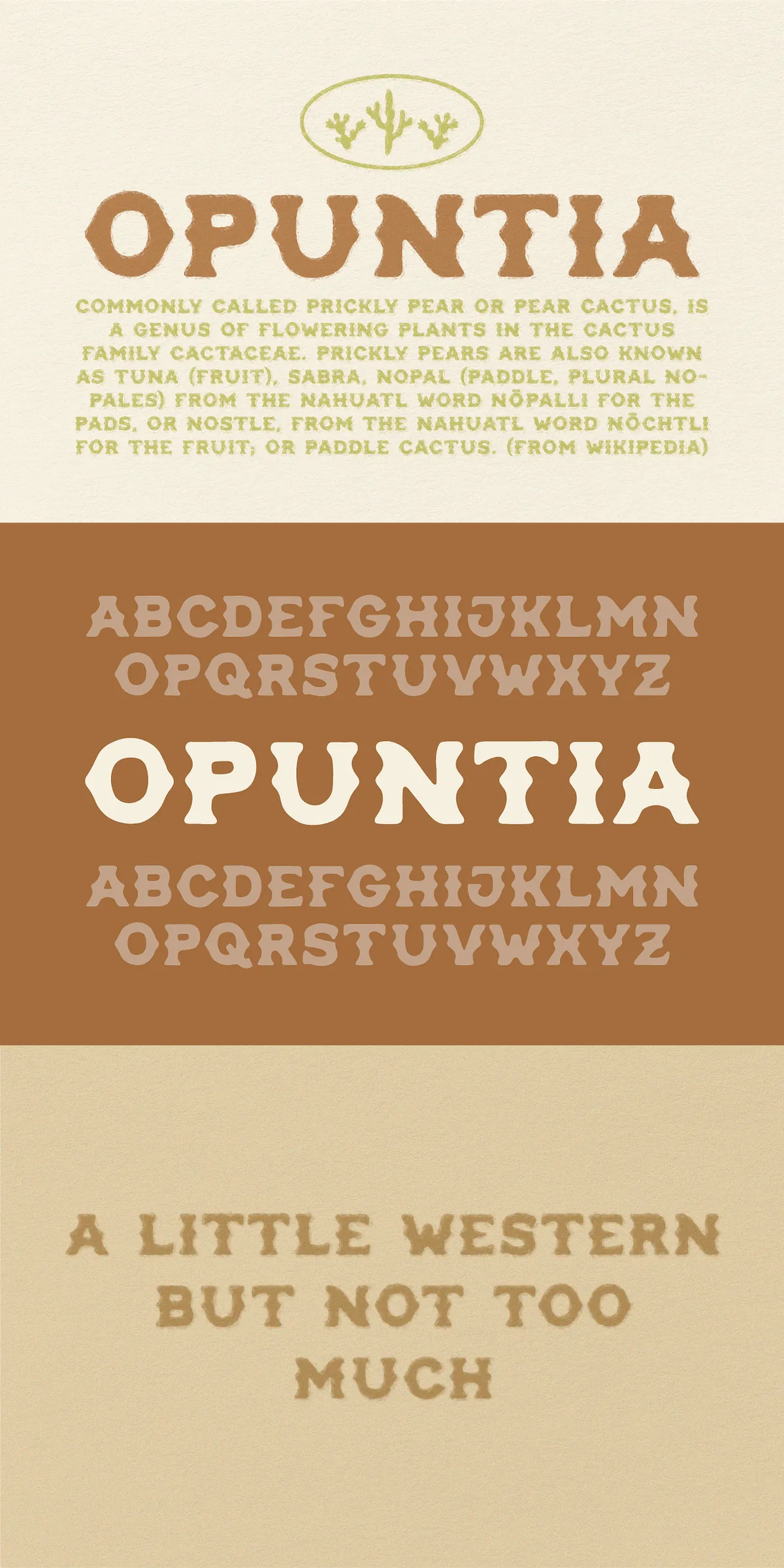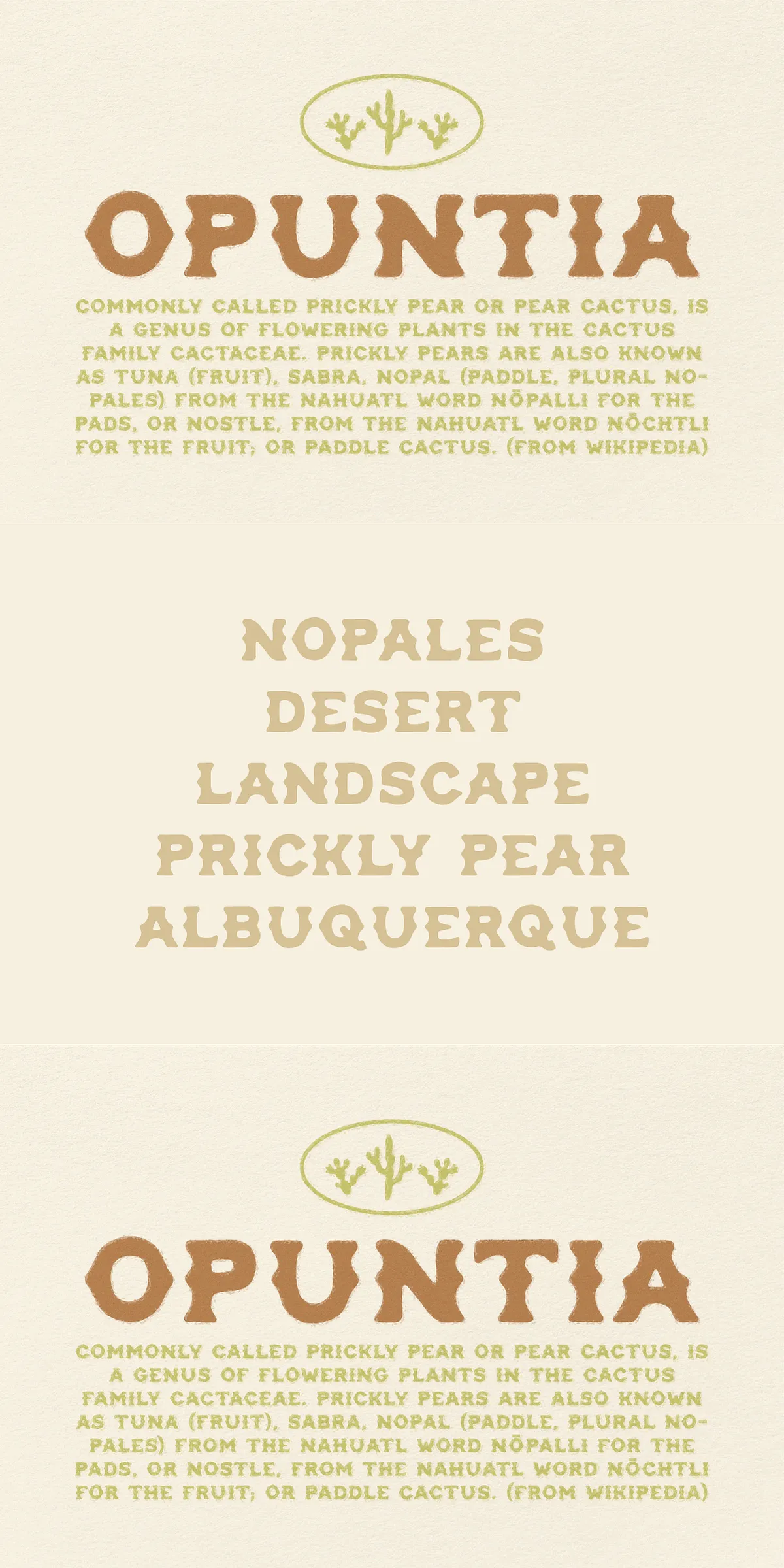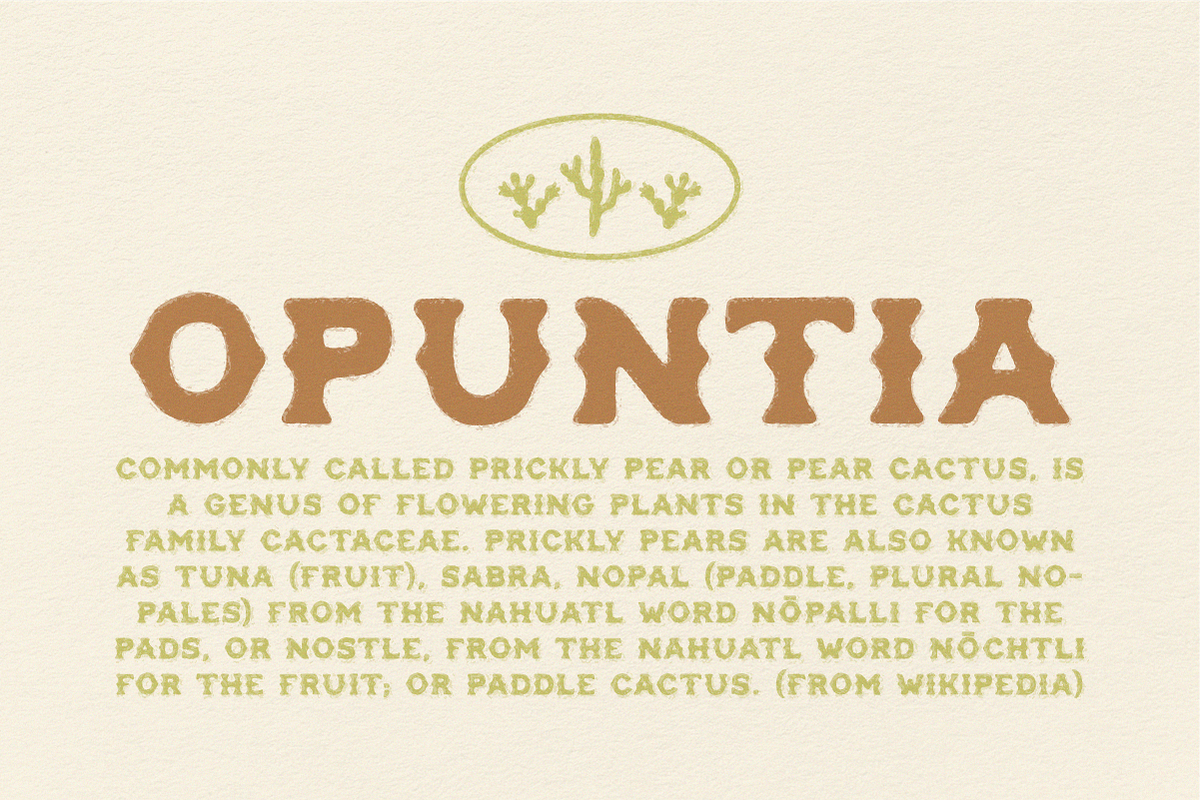
Step into the wild heart of the desert with Prickly Pear — a dynamic, handcrafted typeface born from the raw beauty of nature, the defiant spirit of desert flora, and the quiet poetry of survival. This isn’t just a font. It’s a tribute to the prickly pear cactus, the cholla, and the resilient life that dares to thrive under the harshest sun. Every curve, every jagged edge, every flowing line echoes the organic architecture of a landscape shaped by time, drought, and silence.
The Essence of the Desert: Form, Feeling, and Function
Prickly Pear captures the essence of desert life in its very structure. The font’s flowing, alternating angles mimic the graceful sway of cactus pads swaying in the wind. Its subtly irregular contours reflect the way nature adapts — not with symmetry, but with resilience. The bold, tactile strokes echo the thick, waxy skin of the cactus, built to store water and deflect the elements. Even the open loops and sharp points whisper of protection — a visual language of survival.
This isn’t a rigid, machine-made font. It radiates a sense of handmade authenticity — a tactile, almost sculptural quality. The curves feel alive, breathing with the rhythm of the land. And yet, despite its organic inspiration, Prickly Pear is engineered for modern design. It’s clean enough for headlines, expressive enough for logos, and rich in character for editorial and branding work.
Characteristics That Define the Spirit of the Landscape
- Curvaceous Structure: Generous, flowing arcs and soft, meandering lines reflect the natural form of the prickly pear pad — elegant, sinuous, and undeniably alive.
- Alternating Angles: Strategic sharp turns and slight offsets create visual rhythm, mimicking the staggered pattern of cacti growing in the sand.
- Organic Weight Variation: Not uniform — thick strokes in the center, thinner ends — like a cactus branch that thickens near its base.
- Textural Subtlety: Subtle grain-like details embedded in the font give it a tactile, hand-drawn feel, enhancing its natural origin story.
- High Visual Impact: Designed to command attention — ideal for posters, packaging, and titles that need presence.
Perfect for Designers Who Seek Authenticity
Prickly Pear is the ultimate choice for designers who value storytelling through typography. It’s not about fitting into a grid. It’s about embracing the wild, the imperfect, the real. Use it to:
- Create branding for eco-conscious businesses, wellness studios, or outdoor adventure brands.
- Design posters and event listings for desert festivals, botanical gardens, or art exhibits.
- Illustrate nature guides, travel blogs, or coffee table books about arid landscapes.
- Design packaging for organic food, teas, or skincare with botanical themes.
- Bold headlines, book covers, and digital content that stand out with soul and substance.
Technical Strength Meets Creative Soul
Elevate Your Project with a Font That Feels Alive
Prickly Pear is more than a typeface — it’s a philosophy. It’s a reminder of nature’s quiet strength, the beauty of adaptation, and the power of imperfection. When you use this font, you’re not just choosing letters. You’re choosing a story — one of drought, survival, resilience, and unexpected beauty.
Let Prickly Pear bring the desert to your screen, your print, your brand. Let its curves move you. Let its angles challenge you. Let its spirit inspire you.
Because true design isn’t made in a lab. It’s grown — like a cactus, from the ground up.